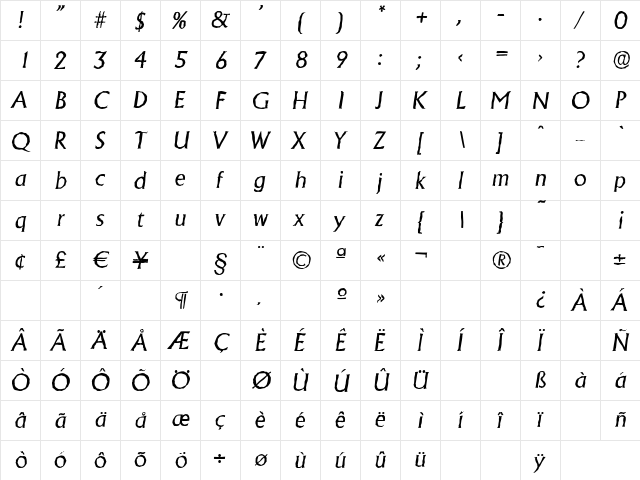
AdelonAntique Italic
Design Context for AdelonAntique Typeface
AdelonAntique has the warm character of retro typography — evoking diners, record sleeves, and the golden age of print advertising. The slanted form adds forward momentum and visual energy.
Font Pairing: Combine AdelonAntique with a simple slab or neutral sans — period-accurate companions reinforce the vintage feel without competing for attention.
Pro Tip: Use AdelonAntique for headlines and pull quotes rather than body copy — its personality is best appreciated in short, focused bursts.